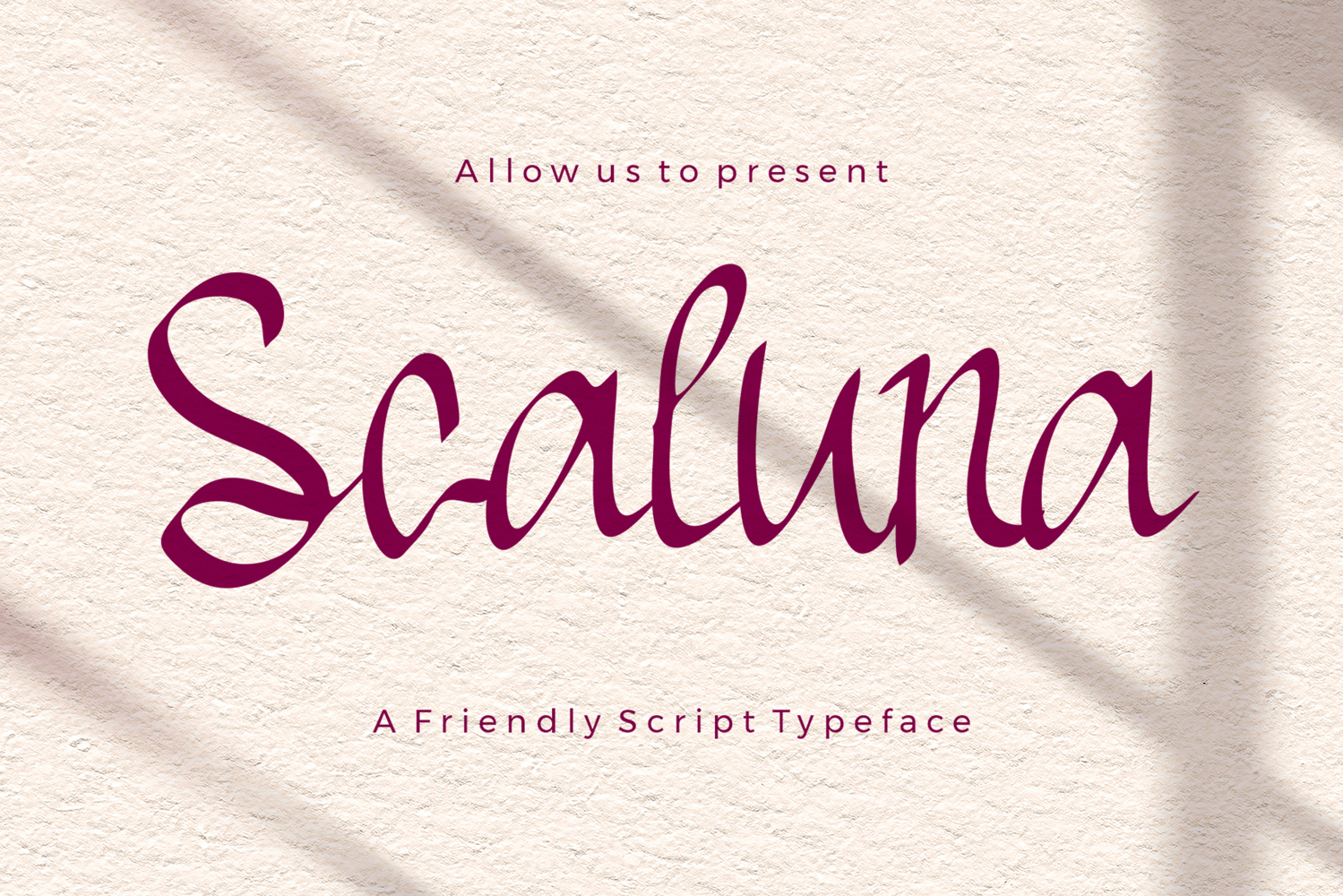
Scaluna - A Friendly Script Font
Scaluna is a charming and approachable script typeface designed to bring warmth and personality to your creative projects. With its smooth, flowing letterforms and soft curves, Scaluna is ideal for a wide range of uses including:
• Wedding invitations
• Branding and logo design
• Social media graphics
• Product packaging
• Greeting cards
• Feminine and lifestyle designs
Crafted with care to maintain a balanced and natural handwritten feel, Scaluna supports both uppercase and lowercase letters, multilingual characters, and essential punctuation. Whether you're working on a romantic stationery project or a stylish brand identity, Scaluna adds a friendly and elegant touch.
Let Scaluna bring a delightful, human touch to your next design.